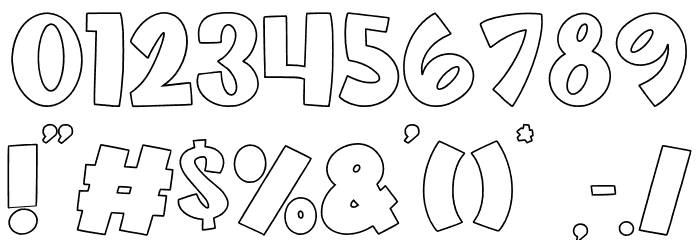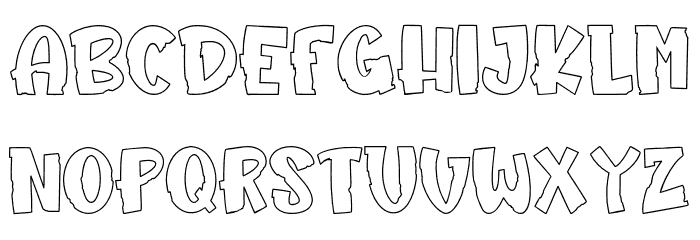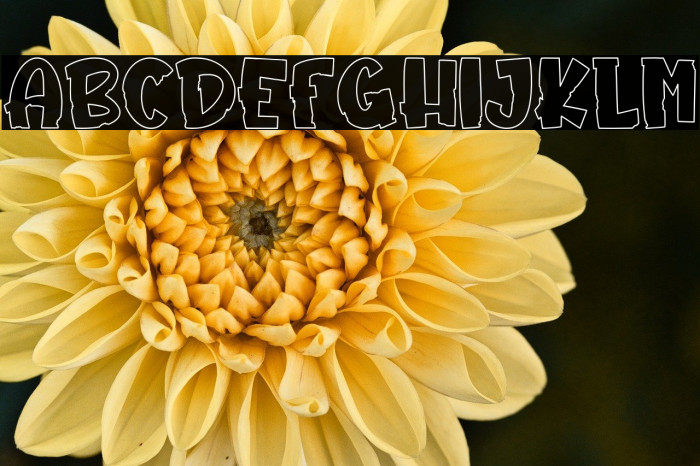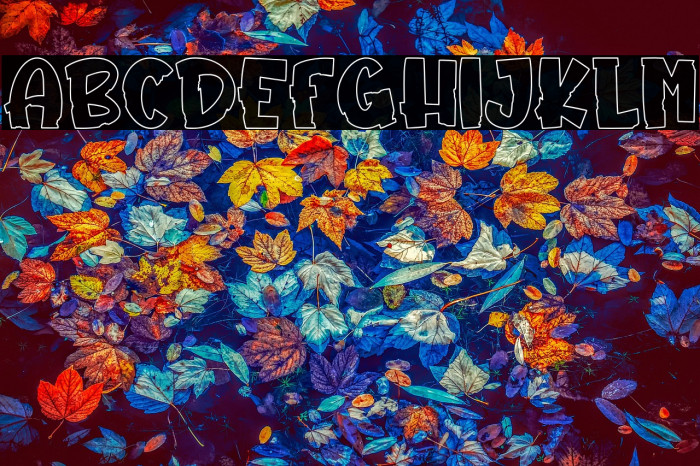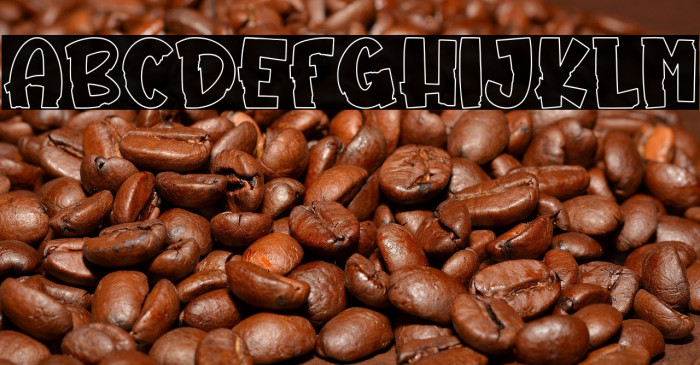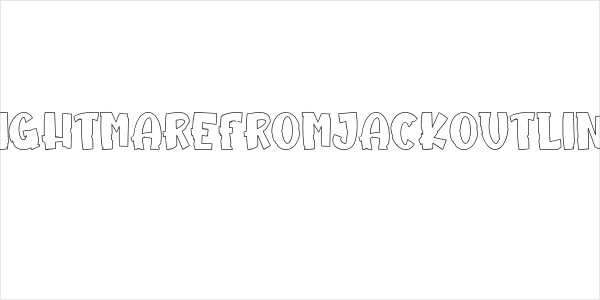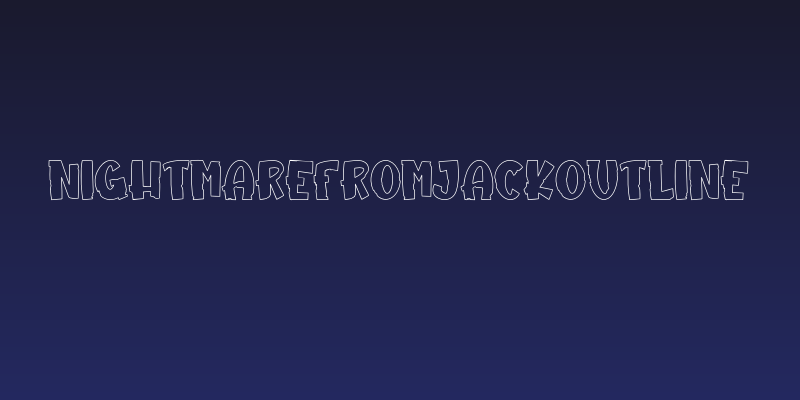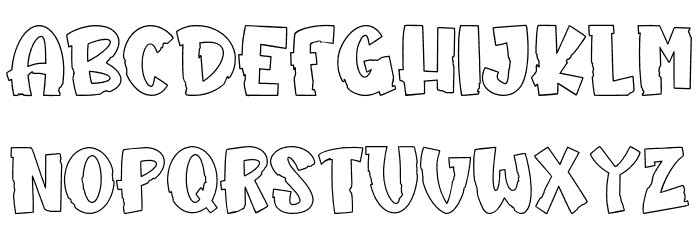
NightmareFromJackOutline Font
NightmareFromJackOutline Description
This font features a playful and bold outline style, characterized by its thick, uneven strokes that give it a hand-drawn, whimsical appearance. The letters are slightly irregular, adding to the quirky and fun aesthetic. The uppercase and lowercase letters maintain a consistent style, with rounded edges and a slightly cartoonish feel. The numbers and special characters follow the same design principles, ensuring a cohesive look across all elements. This font's unique outline design makes it stand out, perfect for projects that require a touch of creativity and individuality.
| Proposed Projects | Ideal for children's books, comic strips, playful branding, party invitations, and creative posters. |